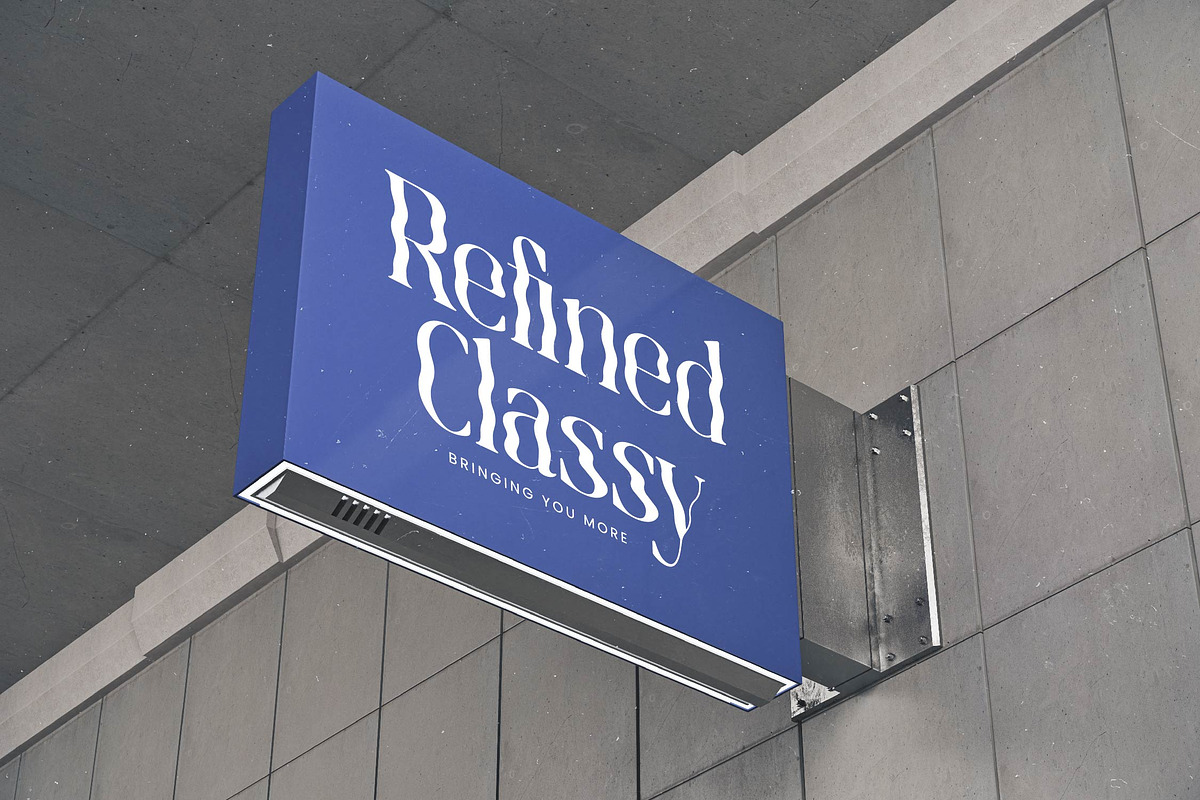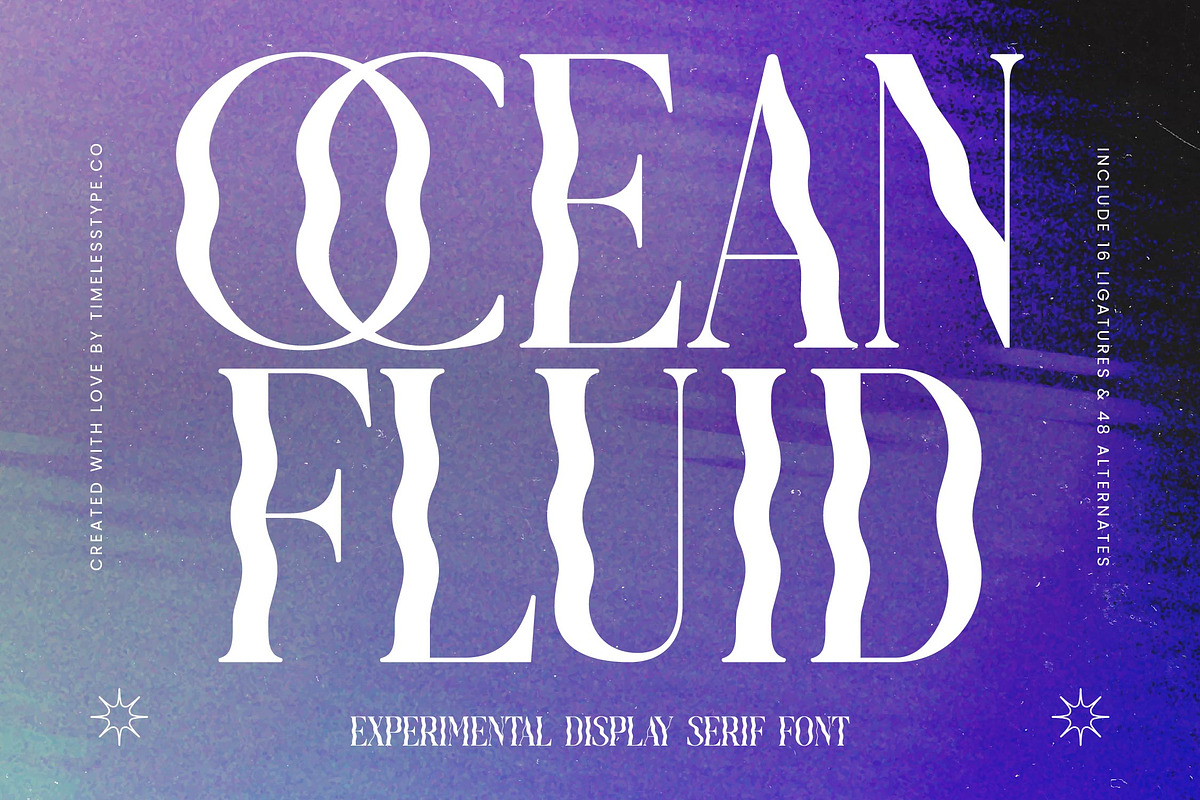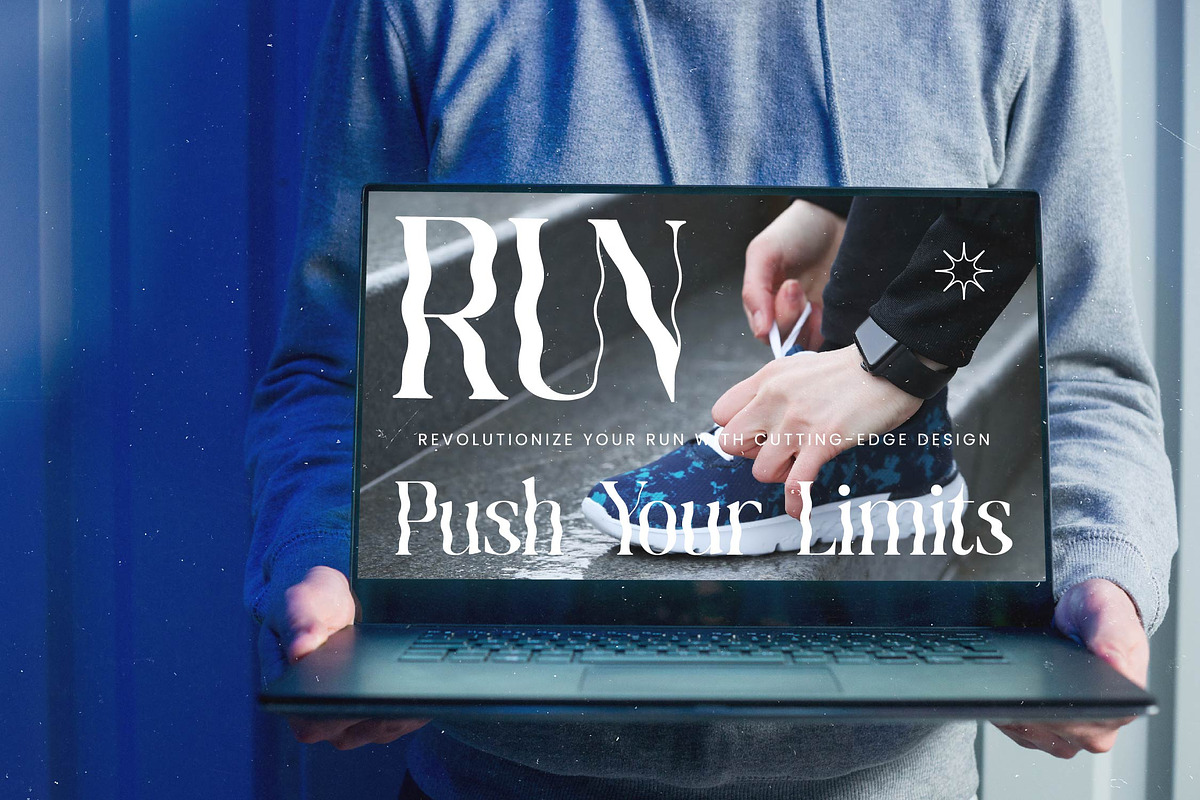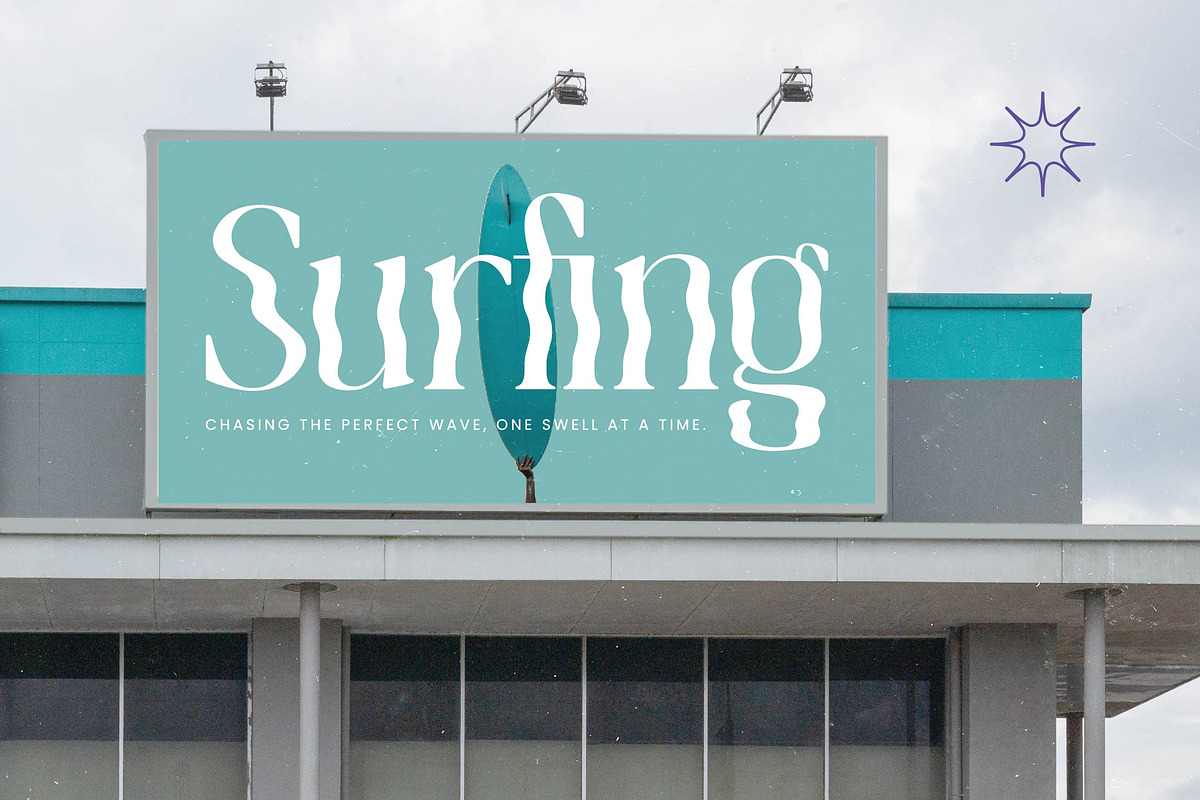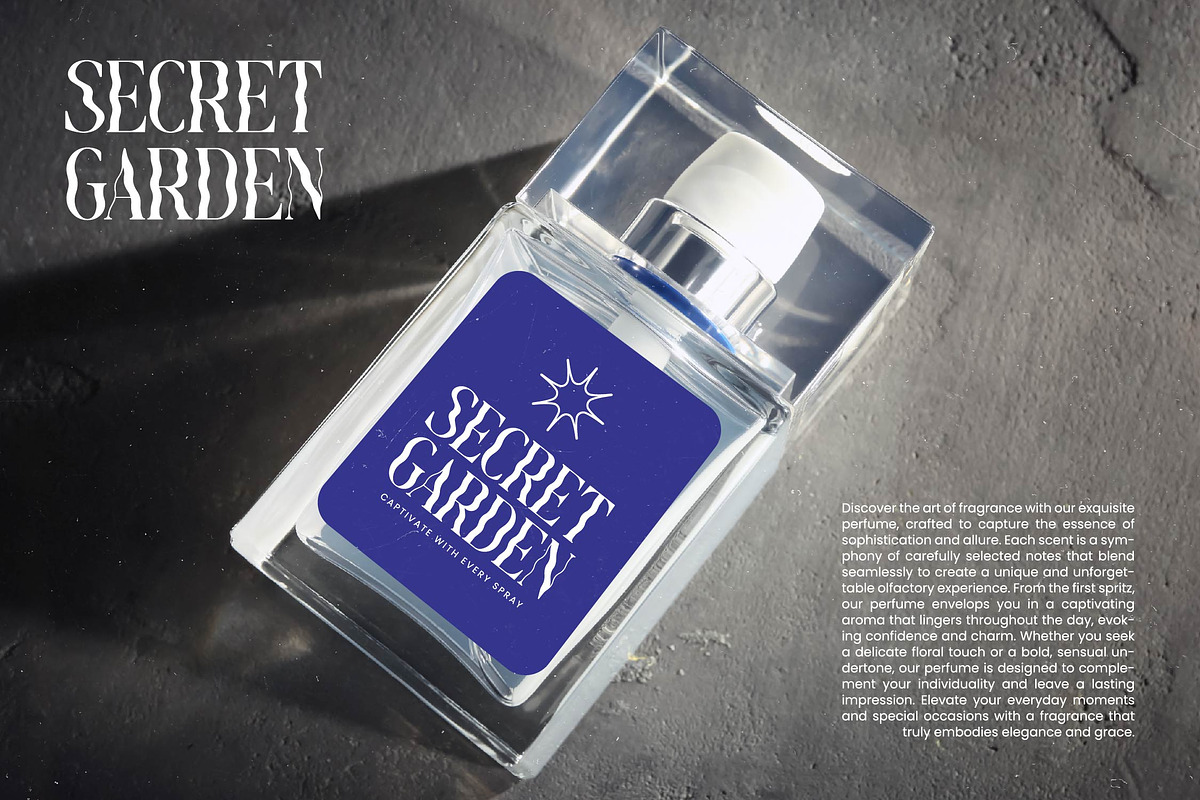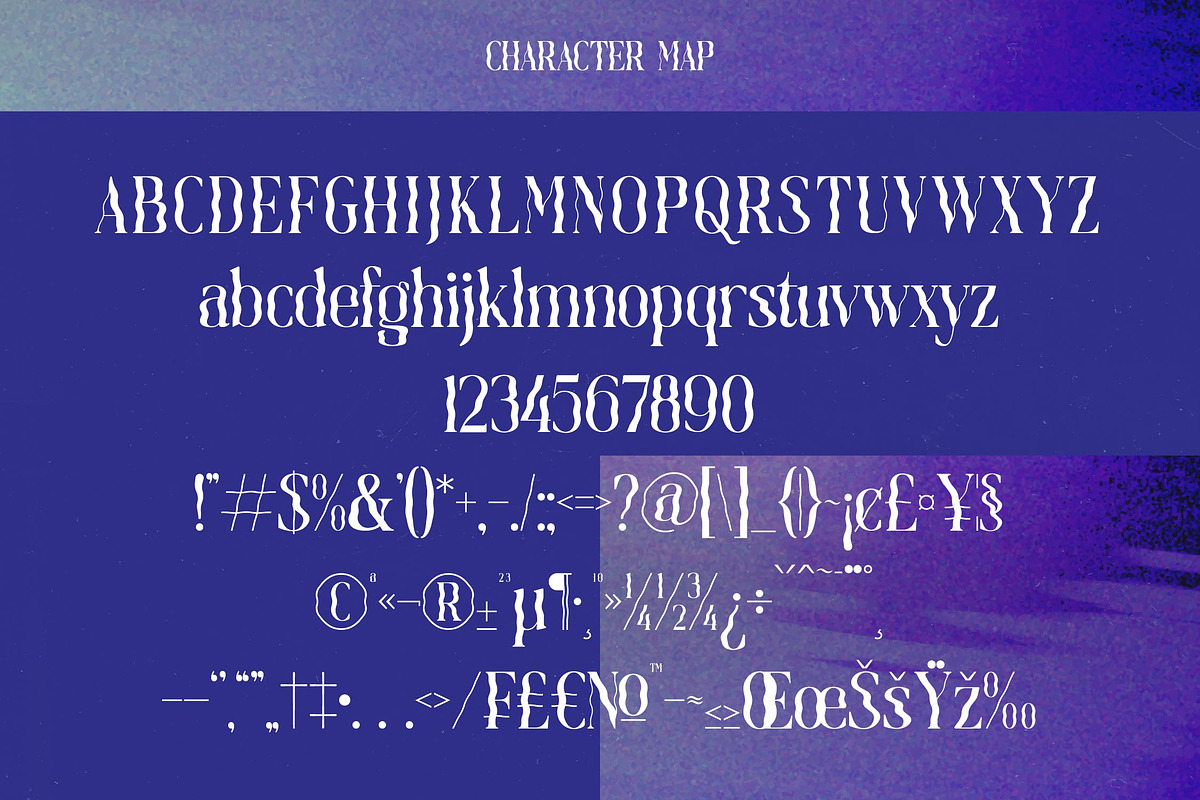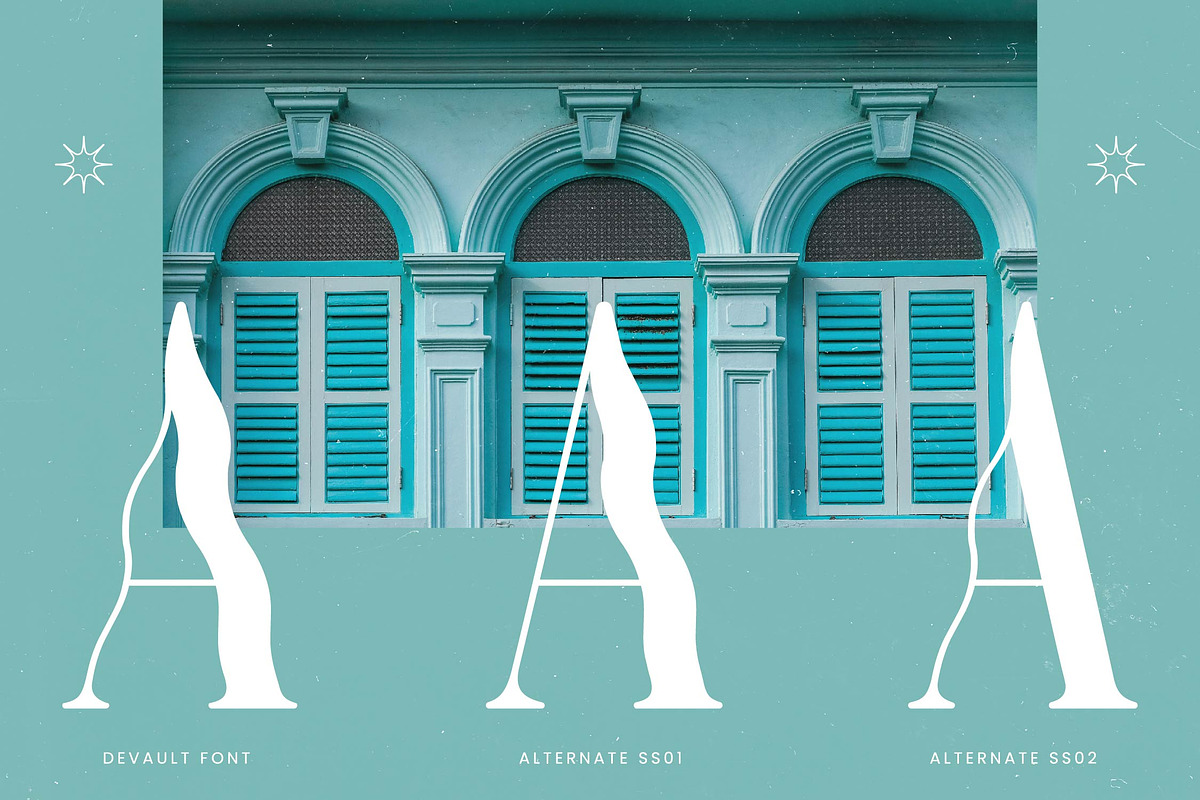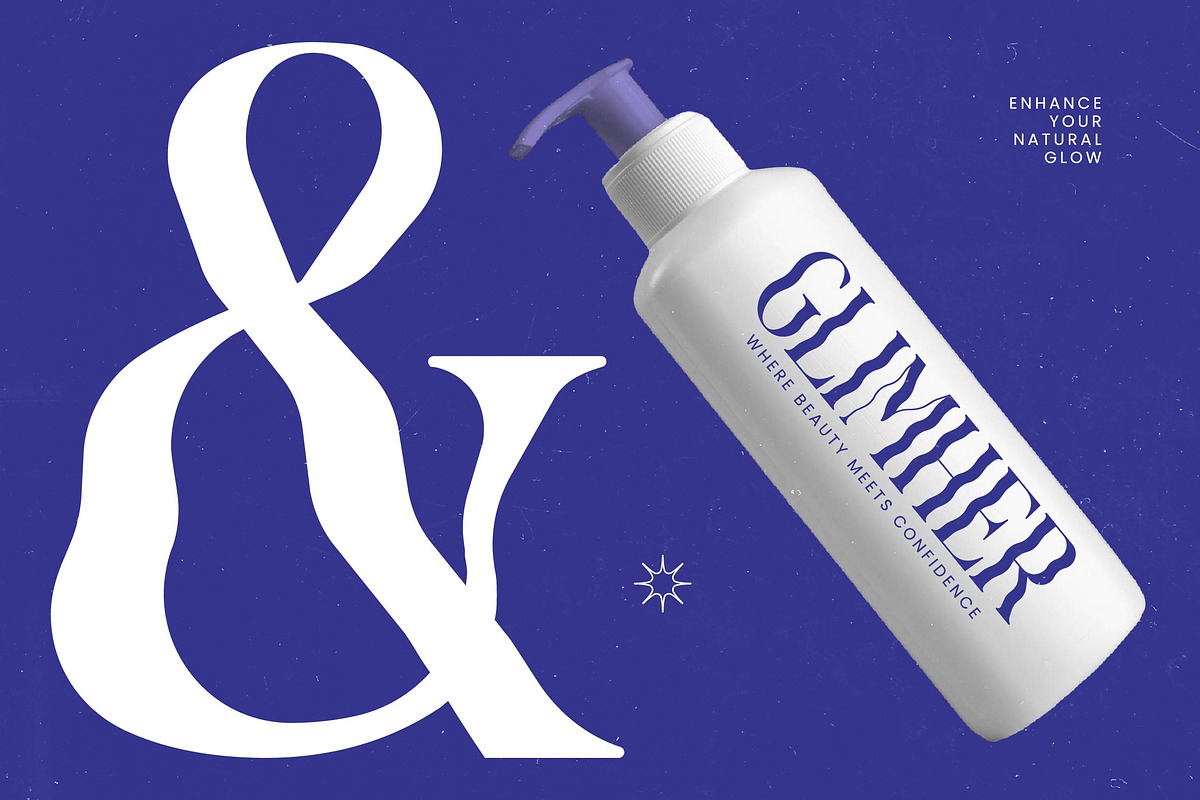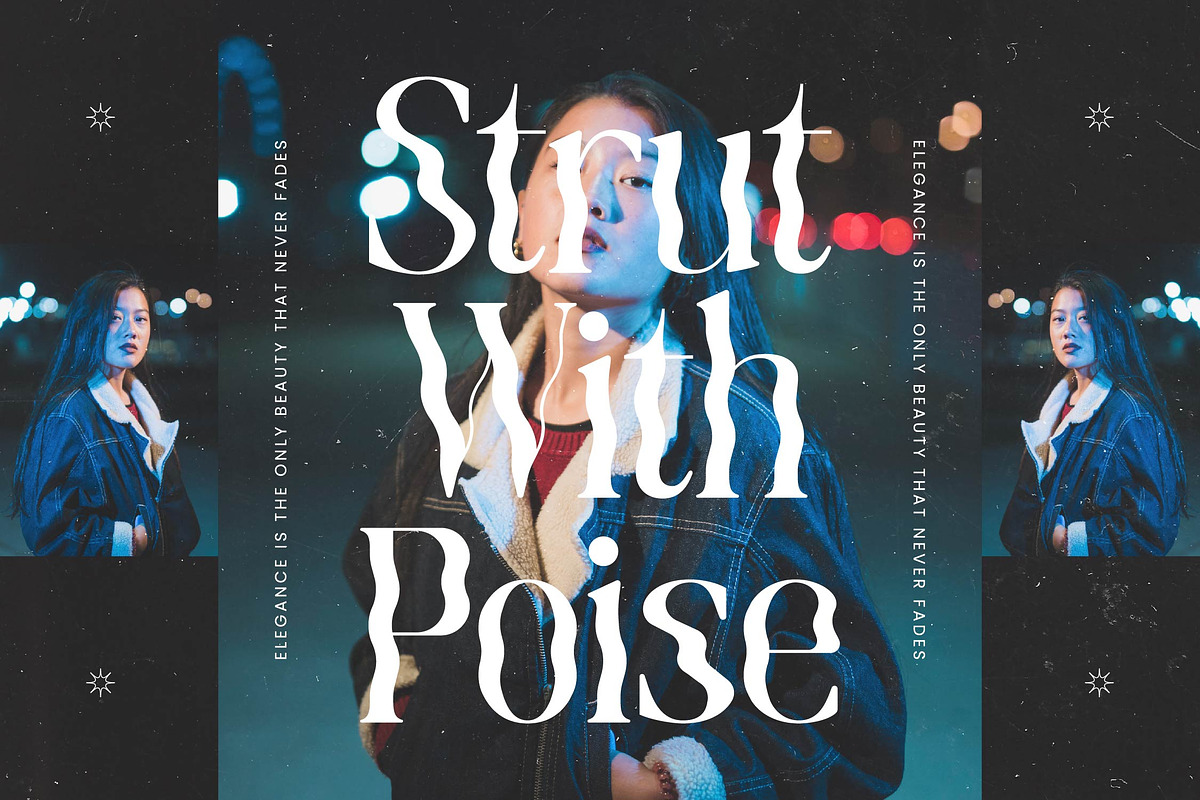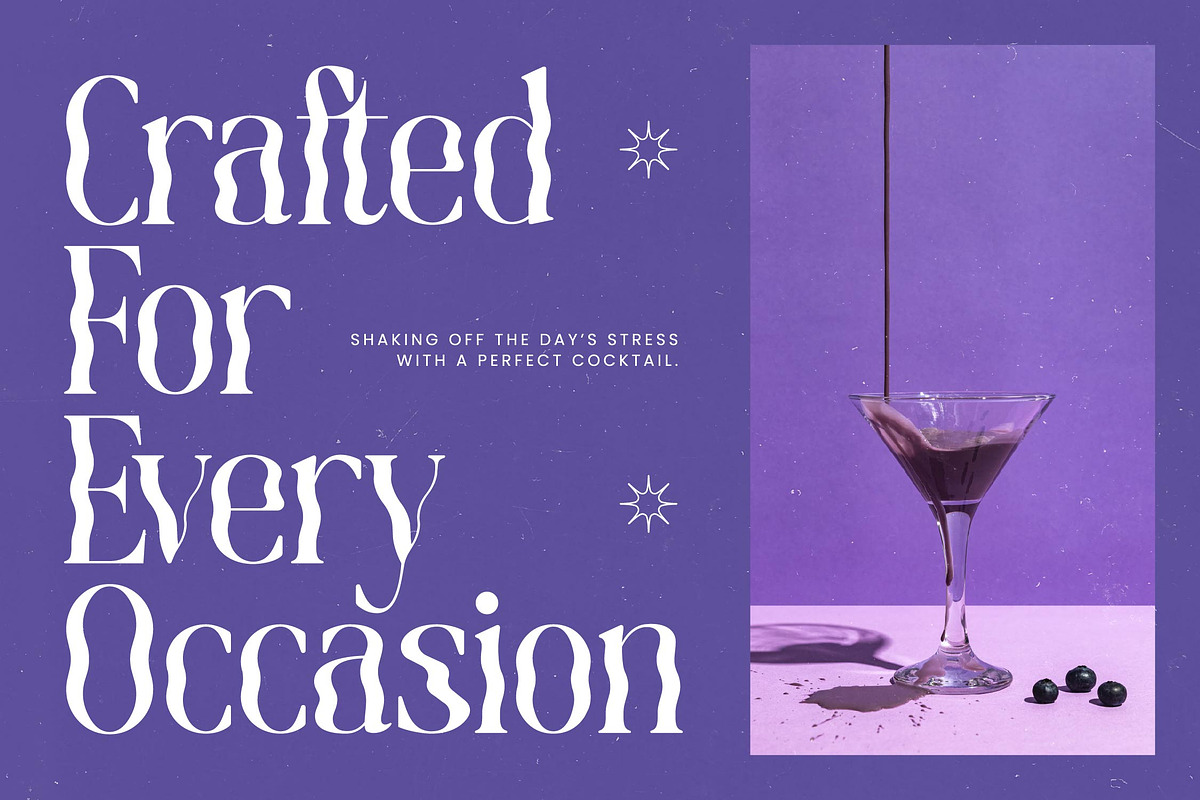
Ocean Fluid Experimental Serif
Dive into a world of liquid elegance and hypnotic motion with Ocean Fluid, a typeface designed to transcend the ordinary and redefine traditional structures. It captures a unique visual rhythm that feels both timeless and avant-garde, ensuring every word makes a profound artistic statement.
Inspired by the rhythmic ebb and flow of deep sea currents and the distorted beauty of light refracting through water, this font evokes a sense of fluid mystery. Its distorted stems and graceful, undulating curves mimic the natural, uninhibited movement of nature’s most powerful and unpredictable element.
This modern serif display is meticulously built for designers seeking luxury typography with a distinct, sharp edge. With its high-contrast serif structure and experimental silhouette, Ocean Fluid delivers a powerful branding impact and serves as a sophisticated editorial font for high-end digital and print media.
Perfectly aligned with the current modern serif trend, this typeface brings a psychedelic yet refined twist to the world of editorial display fonts. It satisfies the growing industry demand for character-driven typography that breaks away from traditional grids to offer something truly memorable and expressive.
It is an ideal choice for high-impact logo design and comprehensive visual branding projects where a unique identity is paramount. From high-fashion editorial spreads to boutique packaging, and even sophisticated wedding stationery or fashion lookbooks, its versatility is truly unmatched.
This professional package includes a vast library of 16 ligatures and 48 alternates, allowing for endless creative customization and unique glyph combinations. With full multilingual support and a wide range of international characters, it ensures your creative message reaches a global audience without compromise.
- Ligature 16 Alternate 48